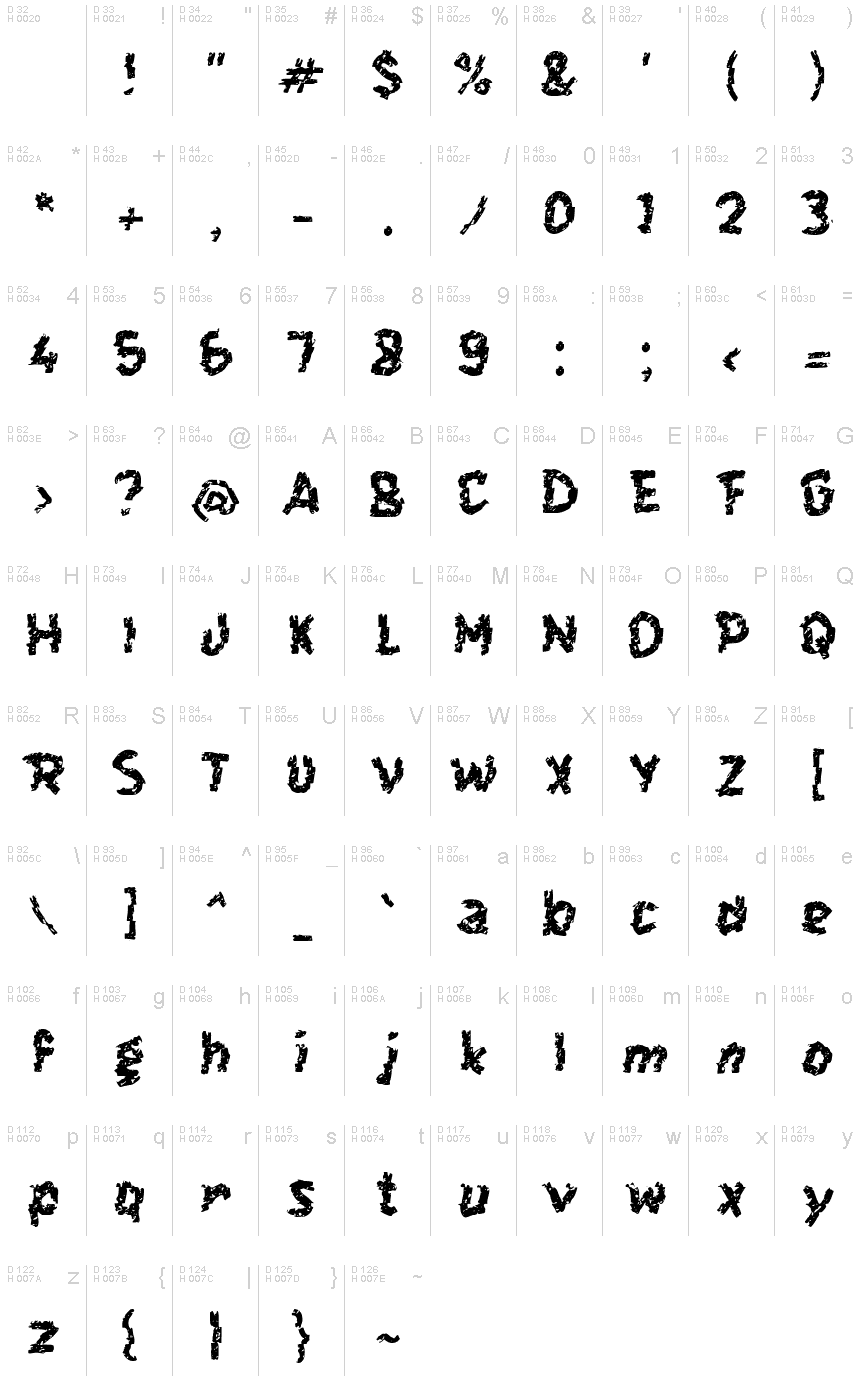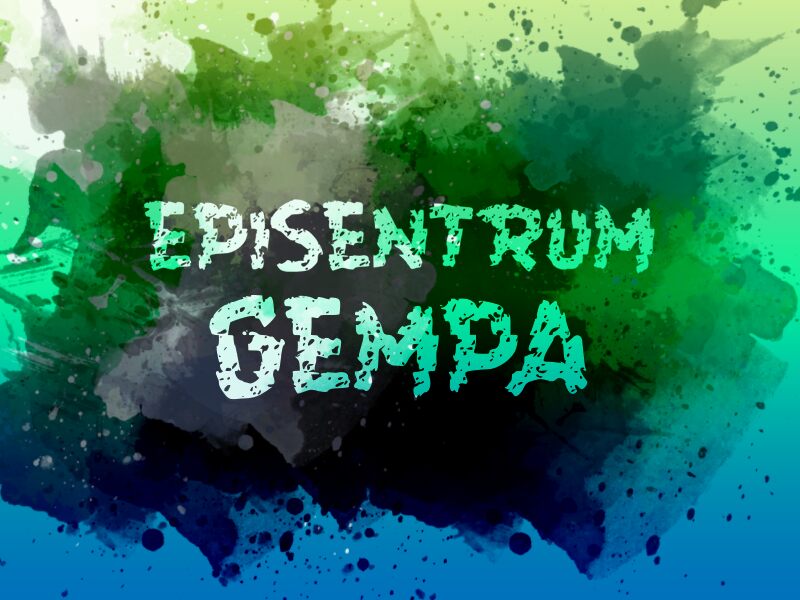
EPISENTRUM GEMPA
Episentrum Gempa, crafted by wep, is a bold and distorted display font that demands attention. Its unique style makes it perfect for projects seeking a strong visual impact, such as movie posters and album covers. With its bold weight and unconventional design, this font adds an edgy touch to branding materials for alternative music festivals or urban fashion labels.
Episentrum Gempa shines on social media graphics, injecting a rebellious spirit into promotional campaigns for streetwear brands or rock concerts. Let this daring font unleash your creativity in unexpected ways!